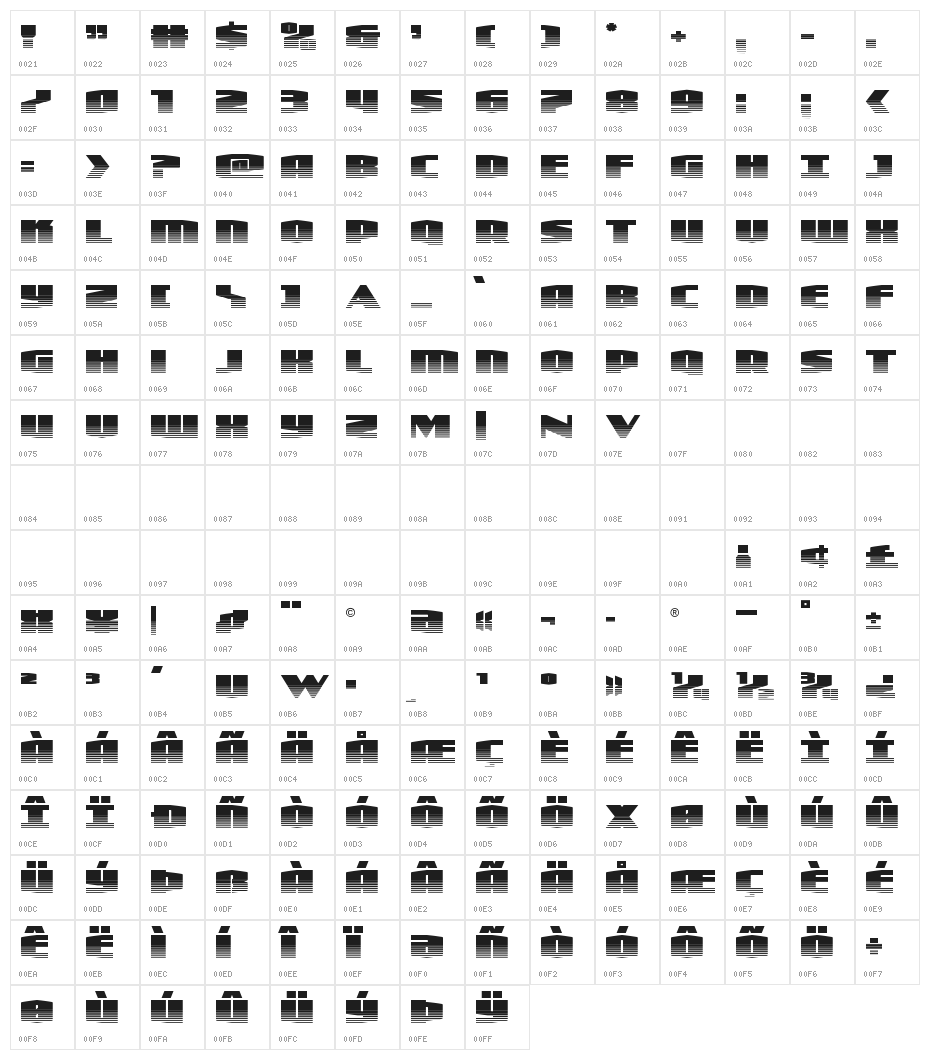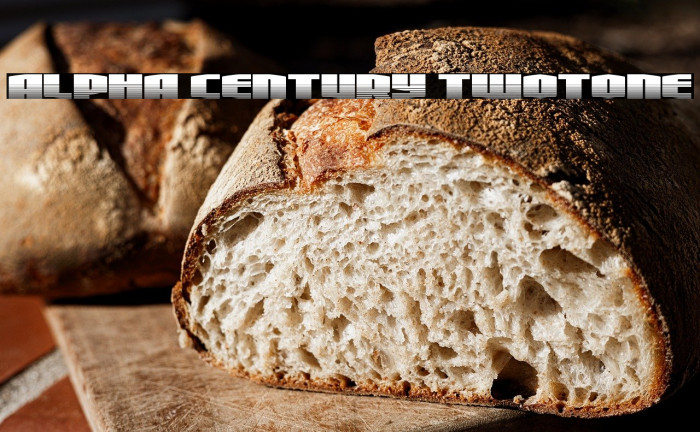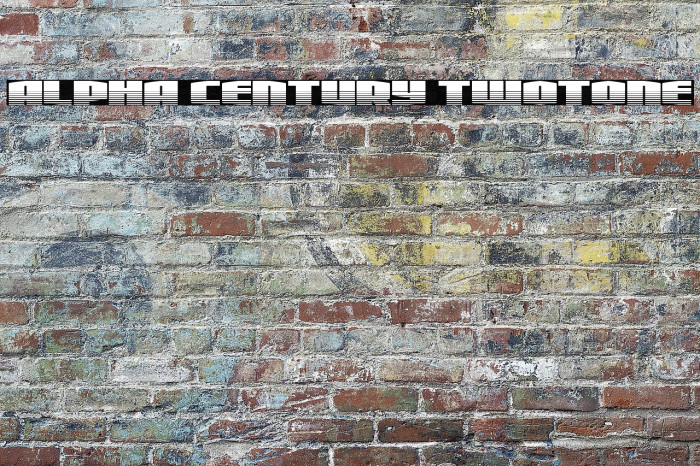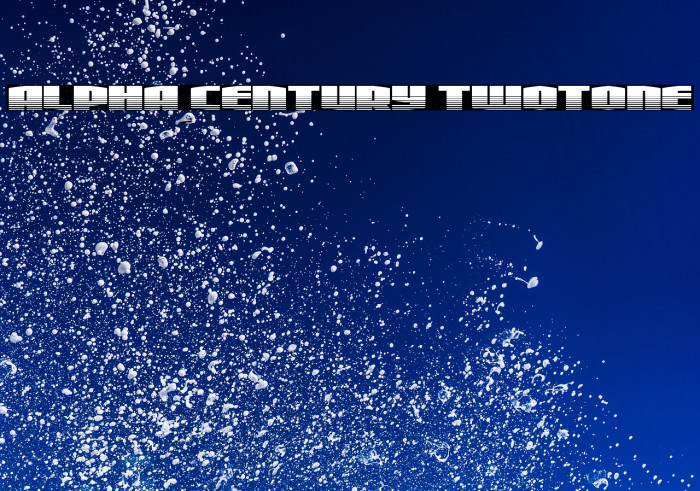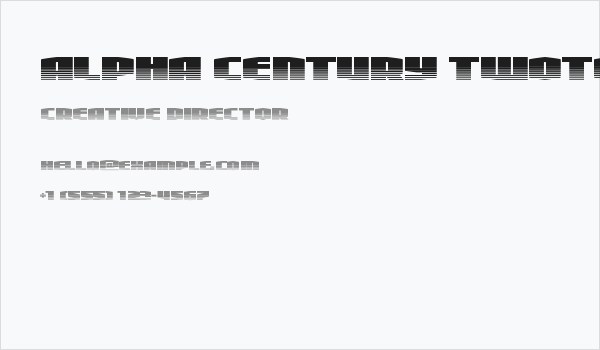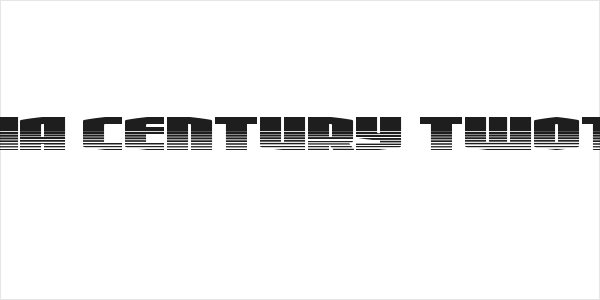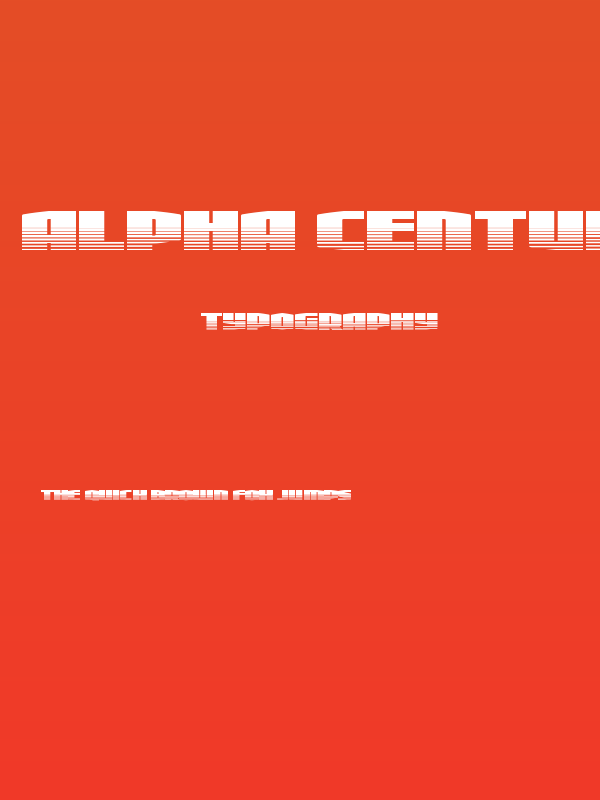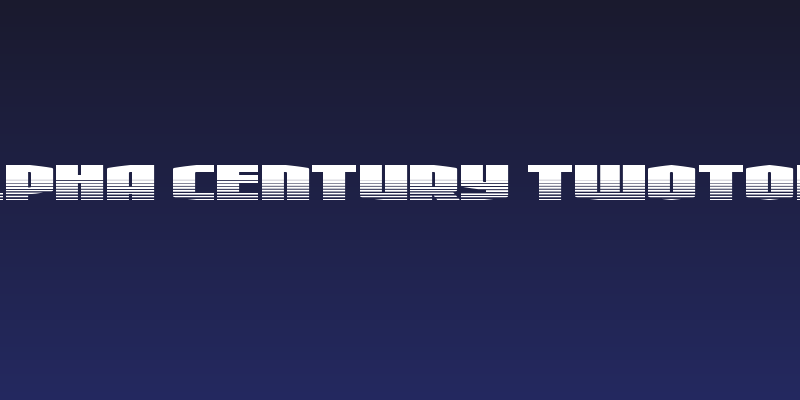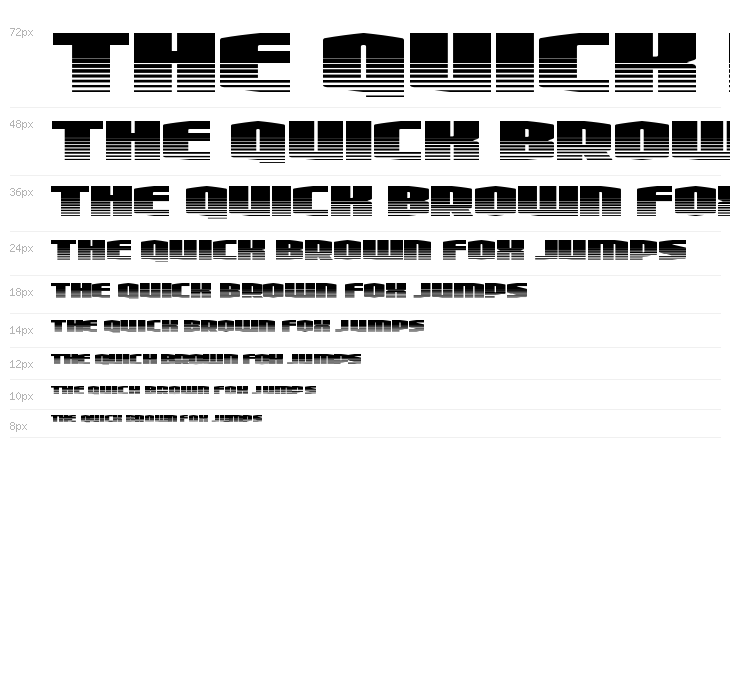
Alpha Century Twotone Font
Alpha Century Twotone Description
This font features a bold, futuristic design with a distinctive two-tone effect. The characters are wide and blocky, with horizontal lines creating a gradient-like appearance from top to bottom. This gives the font a dynamic and modern aesthetic, reminiscent of digital or sci-fi themes. The uppercase and lowercase letters maintain a consistent style, while the numerals and special characters are equally bold and striking. The overall design is eye-catching and suitable for projects that require a strong visual impact.
| Proposed Projects | Ideal for sci-fi themed posters, video game titles, tech branding, and futuristic event flyers. |